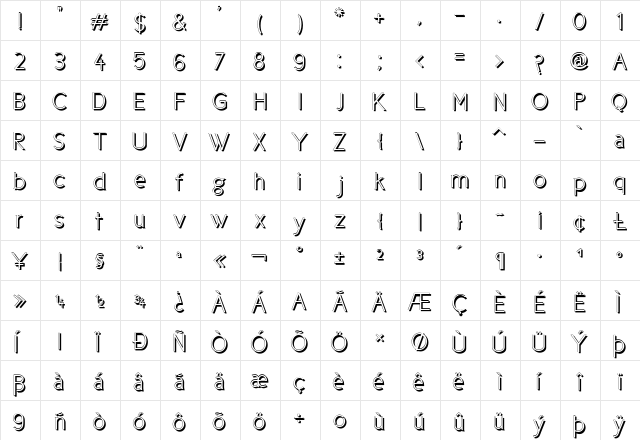
Cicle Shadow
| Style | Shadow |
| Foundry | La Tipomatika |
| Designer | La Tipomatika (Digital Type Foundry) |
Design Context for Cicle Typeface
Cicle brings ornamental detail and strong personality to headlines and identities, where visual impact matters more than quiet functionality.
Font Pairing: Pair with a clean neutral sans-serif for body copy to let Cicle's character lead without overwhelming the composition.
Pro Tip: Treat Cicle as the centrepiece of your typographic hierarchy. One strong heading set in a decorative face can carry an entire layout.